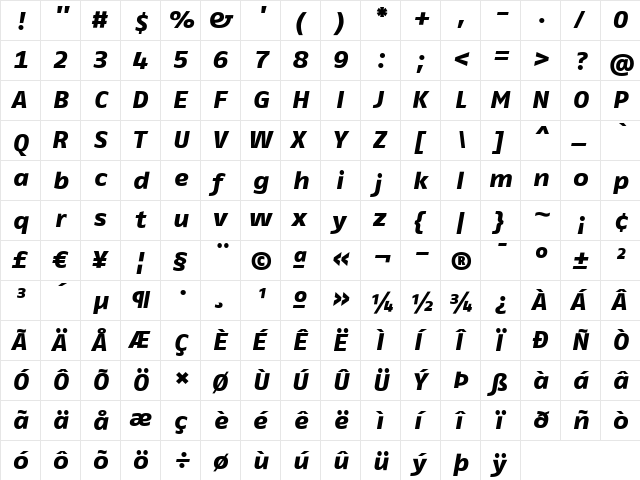
FagoExTf ItalicExtrabold Font Preview
FagoExTf ItalicExtrabold
FagoExTf ItalicExtrabold Font Details
| Style | ItalicExtrabold |
Design Context for FagoExTf Typeface
FagoExTf is a composed and adaptable typeface that performs quietly and consistently across a wide range of design contexts. The dynamic lean of this cut emphasises speed and emphasis in any layout. The heavy weight commands attention and anchors typographic hierarchies.